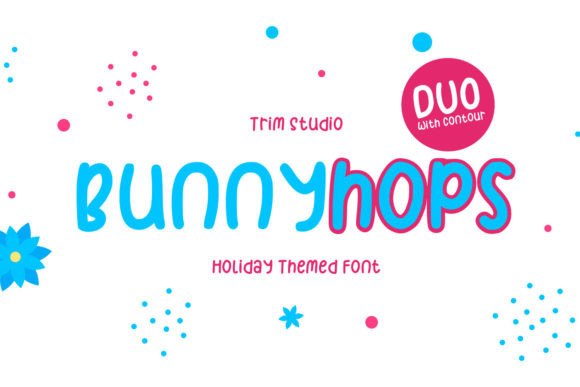
The Easter Bunny of Fonts: A Comprehensive Guide to Bunnyhops
I’ll never forget the time I was working on an Easter-themed project for a client, and I just couldn’t find the perfect font to match the playful and whimsical vibe they were looking for. I scoured the internet, tried out dozens of fonts, but nothing seemed quite right. That was until I stumbled upon Bunnyhops – a charming display font that instantly brought my design to life! In this article, I’ll share my experience with Bunnyhops, and provide you with a comprehensive guide on how to make the most of this delightful font.
An Honest Review of Bunnyhops
What I Love About Bunnyhops ✨
• Rounded edges and cute movements that add a fun and whimsical touch to any project 🎉
• PUA encoded, making it easy to access all delightful glyphs and swashes effortlessly ✅
• Perfect for Easter-themed designs, but also versatile enough to use for other playful projects 🎊
• Great for grabbing attention and spreading joy – who wouldn’t want that in their designs? 😊
While Bunnyhops is an amazing font, there are a few things to keep in mind:
• As a display font, it may not be the best choice for body text or smaller sizes 🤔
• Some users may find the rounded edges and playful movements too whimsical for certain projects ⚠️
The Story Behind Bunnyhops
Bunnyhops was designed with one goal in mind: to bring a smile to your face. The designer, inspired by the joy of Easter and the whimsy of childhood, created a font that’s both playful and charming. With its rounded edges and cute movements, Bunnyhops is the perfect addition to any Easter-themed project – or any project that needs a bit of fun and whimsy.
A: PUA (Private Use Area) encoding allows designers to access a wide range of glyphs and swashes, making it easy to customize and personalize their text. With Bunnyhops, you can effortlessly access all the delightful glyphs and swashes.